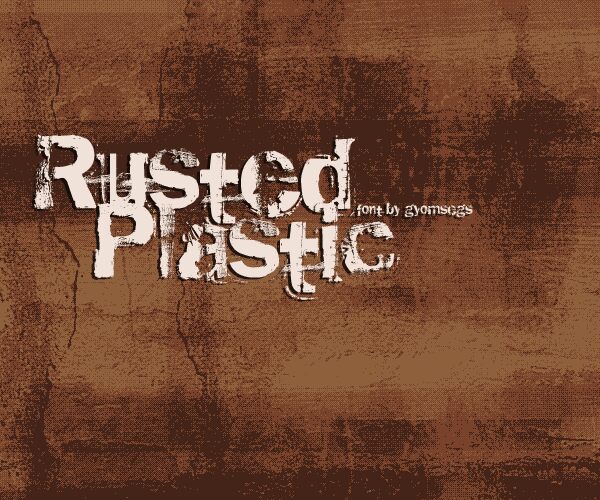
Rusted Plastic by Gyomsegs is a free eroded display font with broad, blocky letters scarred by scratches, missing patches, and rough edges. Its uneven wear looks printed, scraped, and weather-beaten rather than digitally distressed.
Independent record labels and streetwear brands can use it for logos, merchandise, and campaign posters with an abrasive industrial bent. It also fits horror events and underground music graphics, where the broken surfaces can merge with photocopied photographs, torn paper, and concrete textures as part of the artwork.